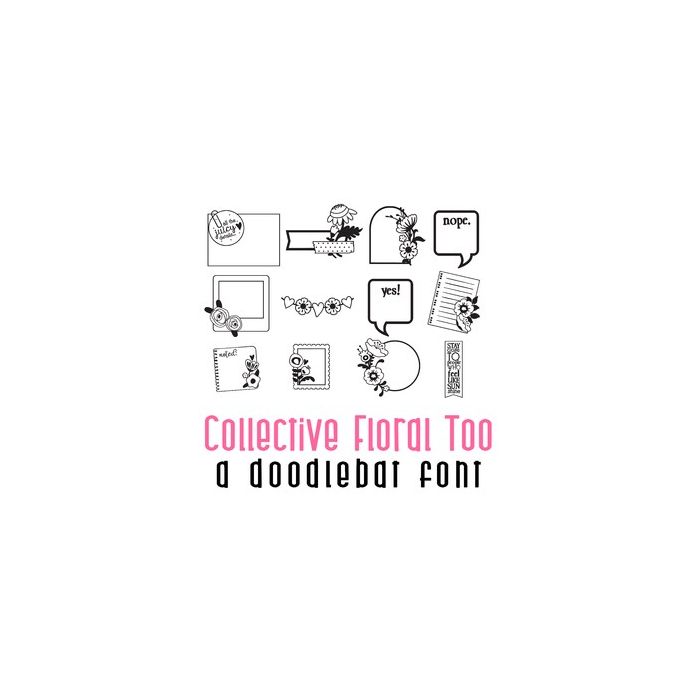
This pretty doodlebat font features 26 embellished and floral journaling and calendaring graphic stickers. Perfect for carts, crafts, gifts, calendars, planners and more!